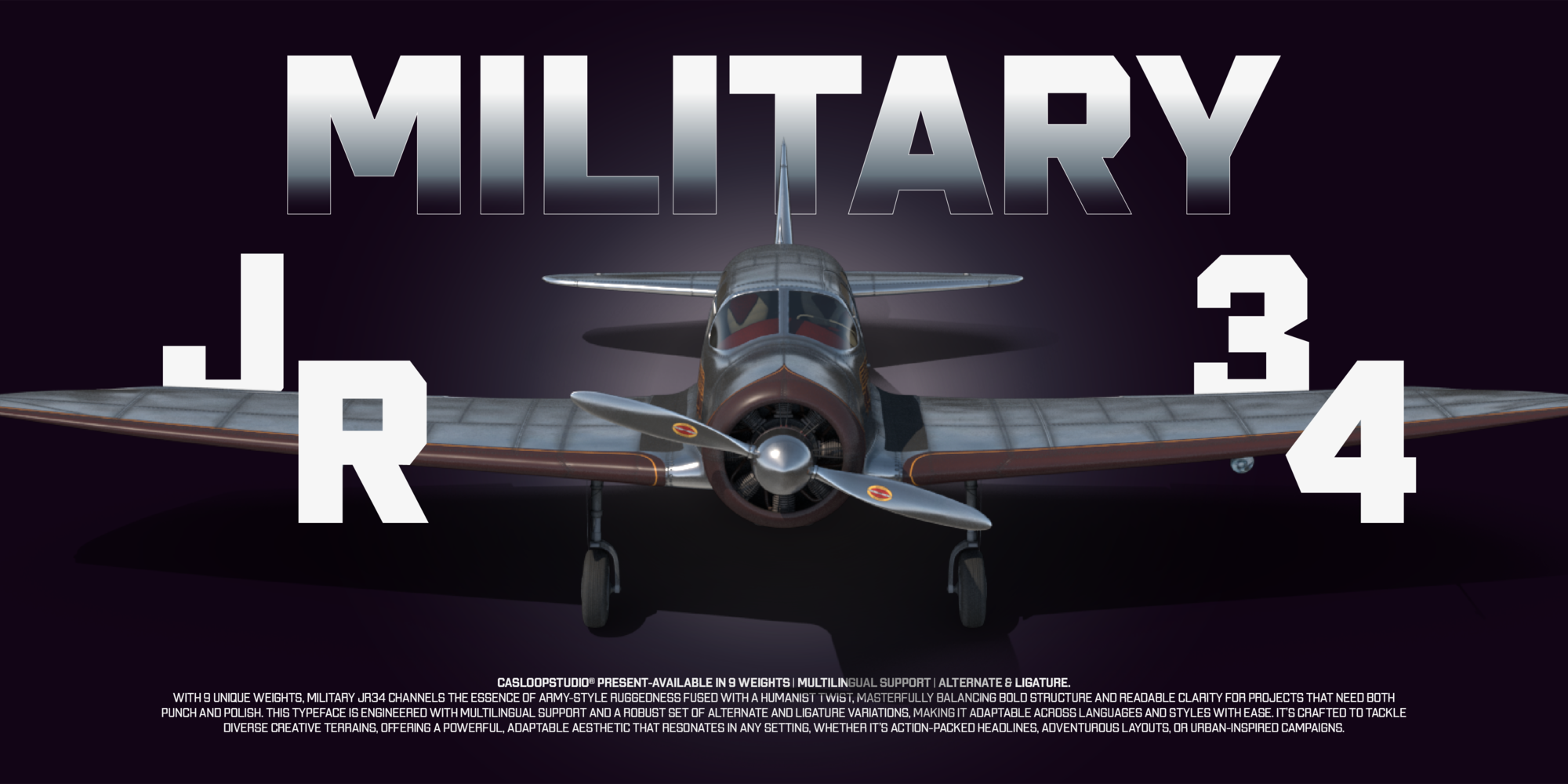
The Military Jr34 Font Free Download is a bold and impactful typeface, an excellent choice for designs that demand strength, authority, and a tactical aesthetic. This commanding font is perfectly suited for gaming titles, action movie posters, military-themed branding, sporting event graphics, rugged product packaging, and protest signage. Imagine it as the powerful logo for a first-person shooter game, providing the assertive typography for a security services company, or giving an unmistakable edge to a combat training advertisement. Its sharp angles and robust construction ensure your message is delivered with undeniable force and a clear sense of purpose.
What makes Military Jr34 Font truly exciting is its ability to convey an immediate sense of power and resilience. It's not just a heavy-duty display font; it embodies a raw energy and an uncompromising clarity that makes it incredibly effective. The distinct, almost stencil-like qualities often present in military-inspired fonts give it an authentic feel, while its solid forms ensure excellent readability even at a distance. Designers will appreciate how it instantly injects a no-nonsense, high-impact aesthetic into any project, making it ideal for designs that need to grab attention and project unyielding strength.
The Military Jr34 Font family typically focuses on a powerful, singular style, often emphasizing its commanding presence. While you might not find a wide range of weights as with some other font families, variations may include a Regular and a Bold option, designed to maximize its visual impact in headlines and prominent displays. Some versions might also include distressed or grunge styles, further enhancing its tactical or weathered appearance. These specific design choices ensure that the Military Jr34 Font Free Download provides ample creative opportunities to make your designs stand out with a formidable and authoritative visual statement.